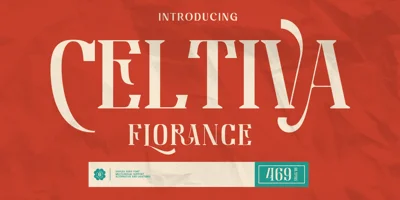
Celtiva Florance Font
Celtiva Florance Font is perfect for Renaissance art exhibitions, Italian cultural festivals, Florentine luxury fashion brands, classical architecture firms, fine arts museums, Italian vineyard marketing, medieval manuscript designs, and sophisticated European heritage campaigns.
This font is exciting because it captures the magnificent grandeur of Renaissance Florence with artistic elegance and cultural sophistication. Celtiva Florance Font features ornate letterforms with Celtic-inspired flourishes that blend Italian Renaissance beauty with ancient Celtic artistry, making it ideal for projects that require historical prestige and timeless artistic appeal.
The Celtiva Florance Font family includes regular, ornate, condensed, and decorative variants, along with Renaissance alternates and artistic ligatures that enhance its cultural character. Each weight maintains the font's sophisticated aesthetic while providing different levels of artistic expression for various heritage and luxury design applications.
Whether you're developing prestigious cultural brands, creating compelling Renaissance materials, or designing sophisticated heritage campaigns, Celtiva Florance Font delivers exceptional elegance and artistic appeal. Its distinctive Renaissance style makes it an excellent choice for designers seeking to add genuine historical grandeur and cultural sophistication to their projects. The font's versatility extends from luxury Italian branding to cultural institution materials, ensuring consistent performance across all heritage applications. With its meticulously crafted letterforms and Renaissance proportions, this typeface provides professional results that honor artistic traditions and establish prestigious cultural presence with its unmistakable Florentine character and timeless Celtic-Renaissance elegance.